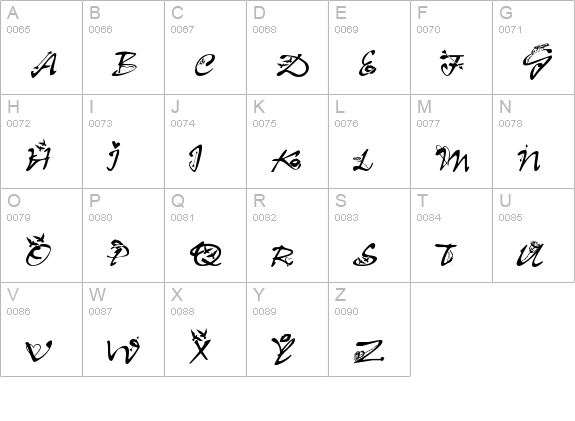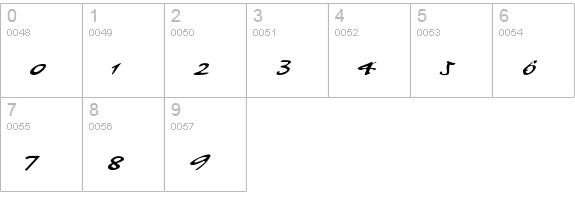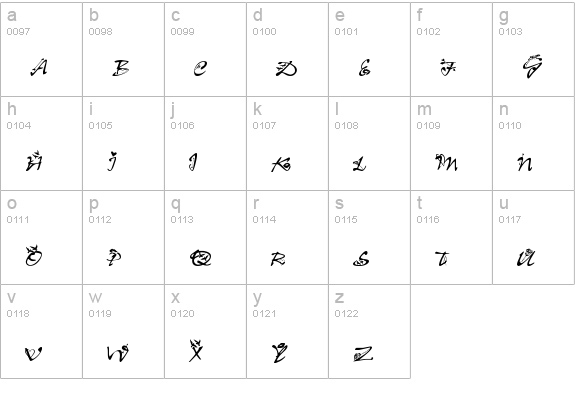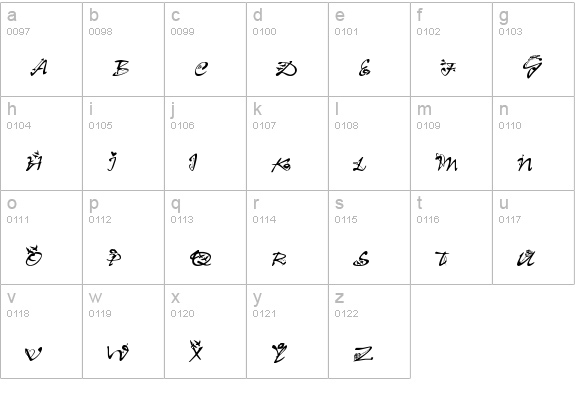
Clb:Valentine Font Details
Clb:Valentine font is a charming and whimsical typeface perfect for adding a touch of love and romance to your projects. With its elegant curves and playful details, this font captures the spirit of Valentine's Day and all things sweet and romantic. Whether you're designing greeting cards, invitations, or social media graphics, Clb:Valentine font is sure to bring a touch of love to your creations. Best of all, Clb:Valentine font is completely free to download at FontsMarket.com. This means you can easily add this lovely font to your collection without any cost. So why wait? Spread the love and download Clb:Valentine font today to add a special touch to your designs.